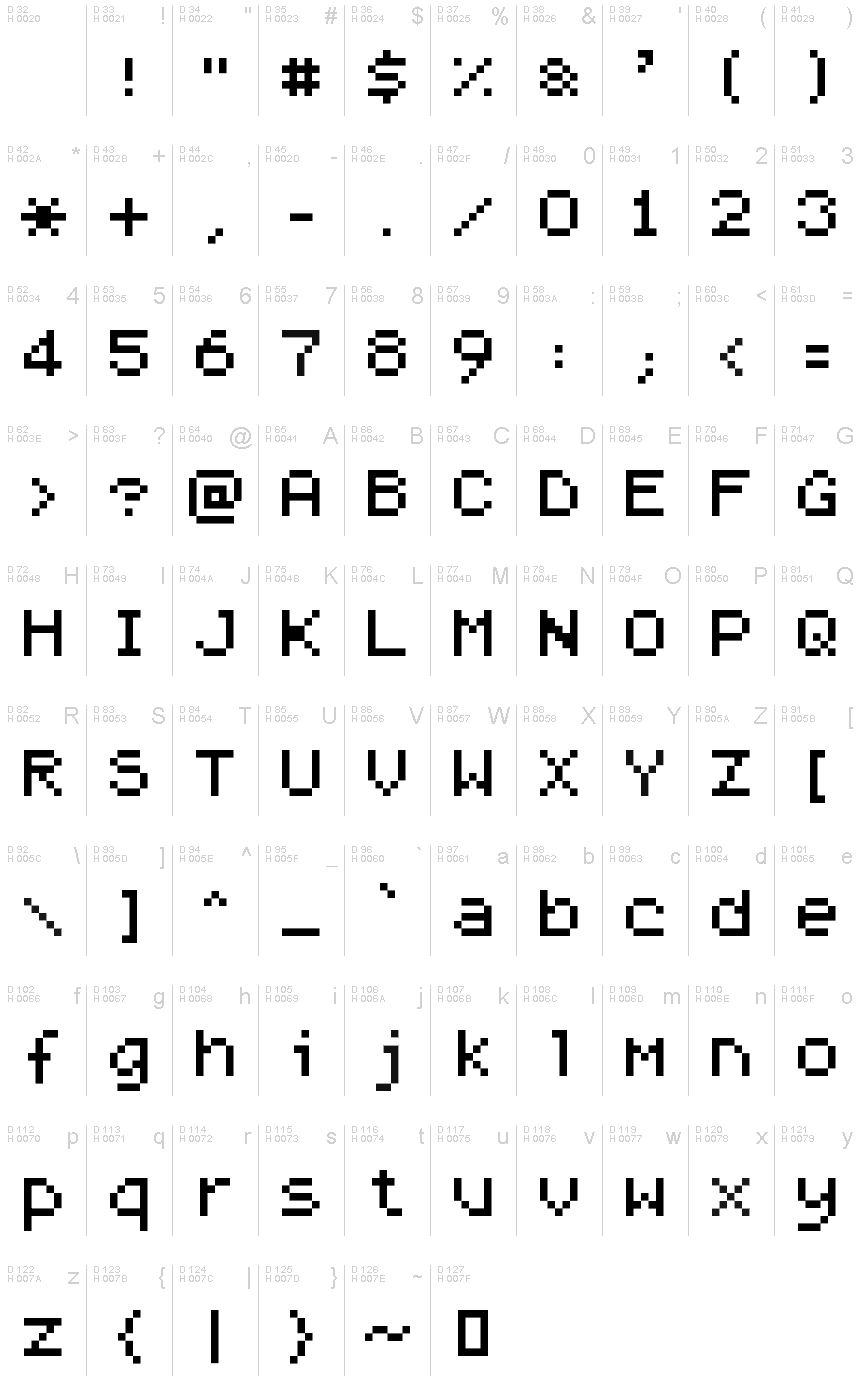
Steelflight
Steelflight is a proportional sans-serif pixel font recreation based on the original main text font appearing in the SNES video game Shadowrun, developed by Beam Software and released by DataEast USA in 1993.
The character set of this font was greatly expanded with countless additional special characters, diacritic variants, unique glyphs and the like, each one of them designed to match the spirit and style of the original font design.
To recreate the original in-game appearance of this font, I recommend to choose font sizes that are multiples of 8pt and avoid any anti-aliasing or other font smoothing methods.
Features:
493 characters total
Proportional sans-serif display typeface
All classic in-game characters from the US and international versions
Countless additional special characters, diacritic variants, etc.
Superscript and subscript numbers based on the in-game damage popups
Unique bonus characters (L & R buttons, Nuyen sign, etc.)